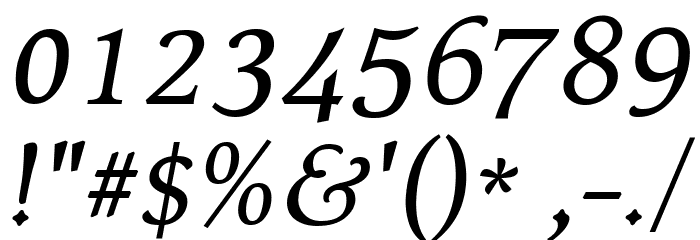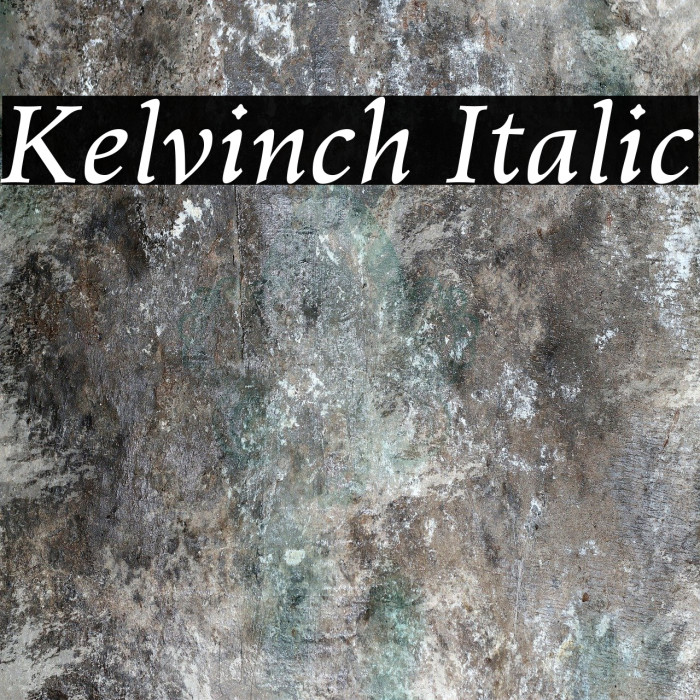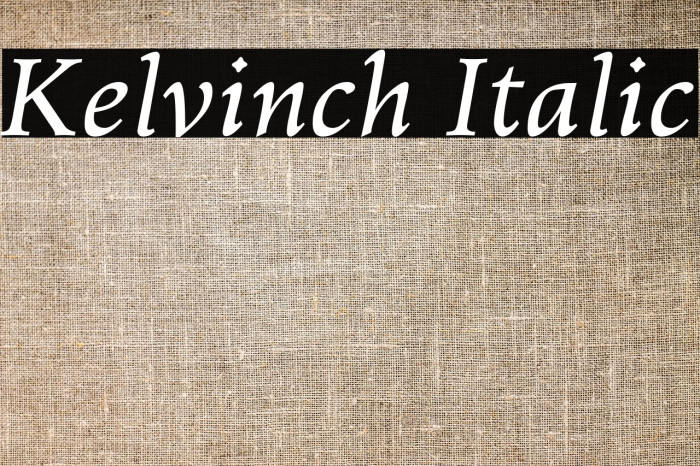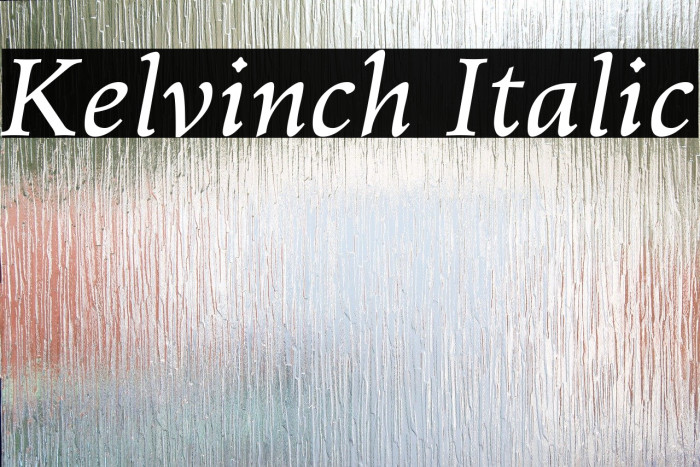
Kelvinch Italic Font
This elegant serif font features a classic italic style with smooth, flowing curves and a refined appearance. The uppercase letters are slightly taller and more pronounced, while the lowercase letters maintain a consistent slant, adding a sense of motion and sophistication. The numerals are well-proportioned, complementing the overall aesthetic. Special characters are designed with attention to detail, ensuring readability and style. The font's contrast between thick and thin strokes enhances its legibility and visual appeal, making it suitable for a variety of design applications.
An elegant italic serif font with smooth curves and refined style.
- Proposed Projects: Ideal for projects requiring a touch of elegance, such as wedding invitations, formal event programs, luxury brand logos, and editorial design.
- Overall Style: Classic